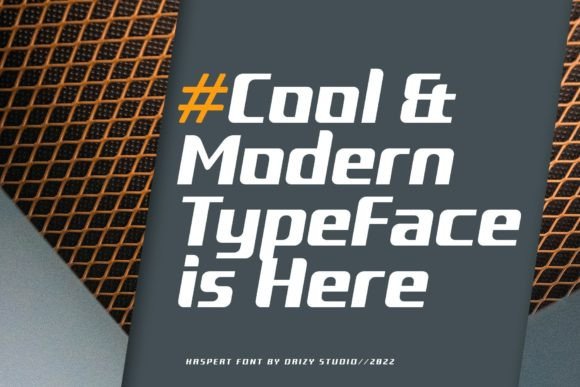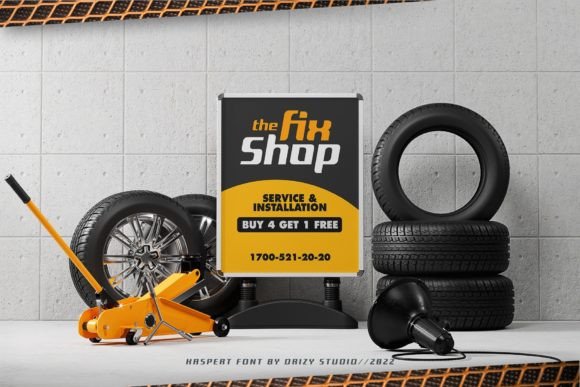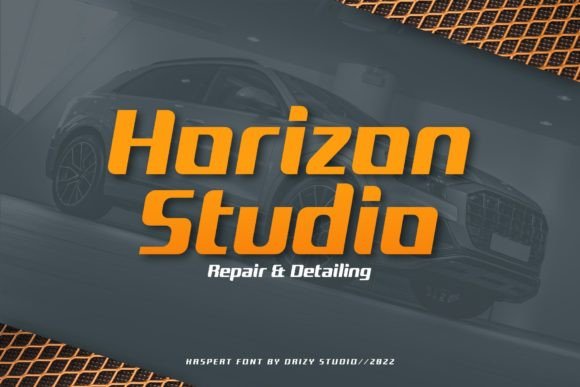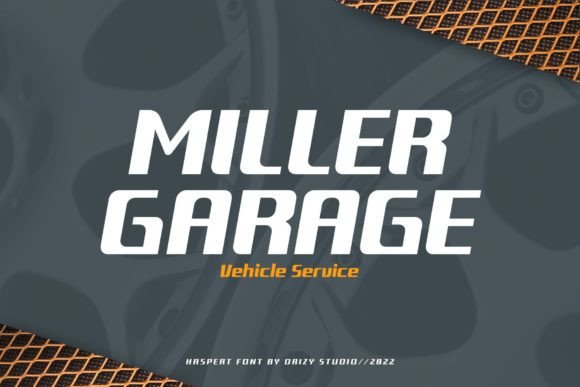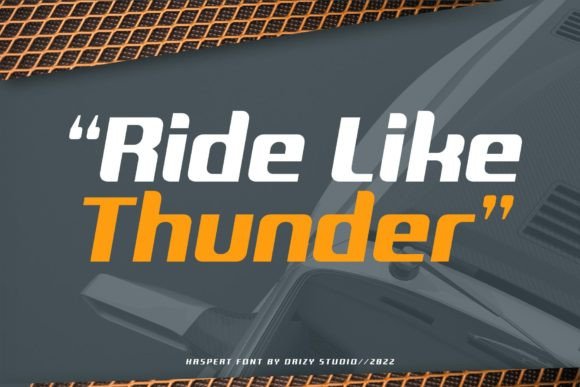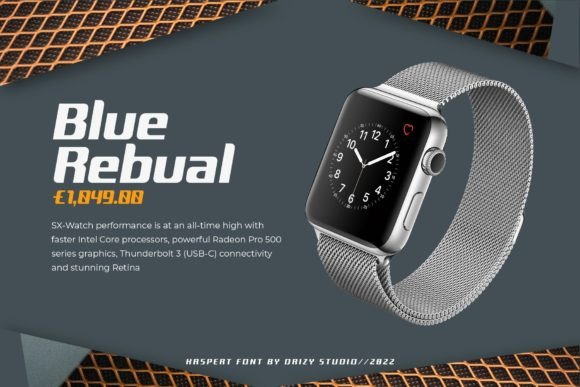
Introduction to Kaspert Font
Kaspert is a modern and bold display font.
Add it confidently to your projects and watch how it makes them come alive .
Key Features of Kaspert Font
Why Choose Kaspert Font?
Kaspert Font offers exceptional quality and versatility, making it a valuable addition to your design toolkit. Whether you’re creating for personal projects or commercial use, Kaspert Font delivers professional results.